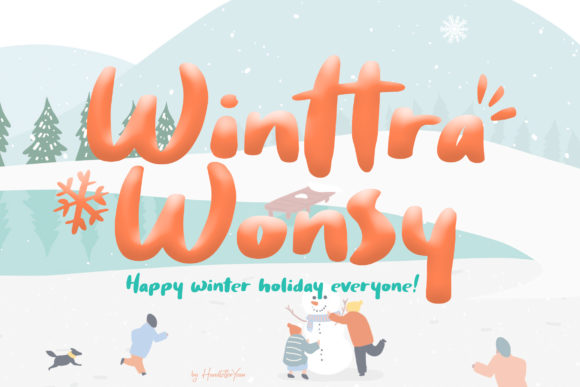
Step into a winter wonderland of whimsical designs with Winttra Wonsy, a charming display font that embodies the magic of the snowy season. This delightful font family, created by the artistic hand of yean.aguste, is a treasure trove of creativity, inviting you to unleash your imagination and transform your design visions into enchanting realities.
Immerse yourself in the playful spirit of Winttra Wonsy, a font that captures the essence of joy and wonder. Each character is a work of art, meticulously crafted with smooth curves and delicate details. The result is a font that dances across the screen, bringing a sense of lightheartedness and cheer to any project.
Designed specifically for display purposes, Winttra Wonsy shines brightest when given ample space to breathe. Use it as a captivating headline that commands attention, a playful subheading that adds a touch of whimsy, or an eye-catching logo that leaves a lasting impression. The possibilities are endless, limited only by your imagination.
Winttra Wonsy is more than just a font; it's an invitation to let your creativity run wild. Whether you're designing for print or digital media, this font will elevate your work to new heights. Its versatility is truly remarkable, adapting seamlessly to a wide range of projects, from cheerful holiday cards to enchanting children's books and everything in between.